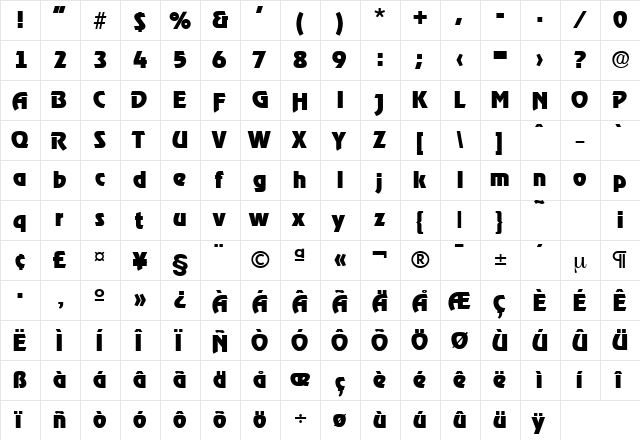
Ragtime-Serial-Heavy Regular
Ragtime-Serial-Heavy is a composed and adaptable typeface that performs quietly and consistently across a wide range of design contexts.